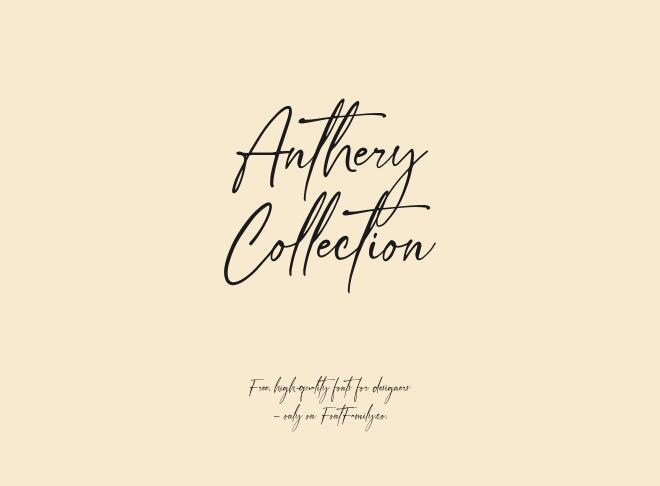
Anthery Collection Font
The Anthery Collection Font, designed by Anthery Design, is a beautiful handwritten font with a rustic and elegant touch. This font is a perfect choice for designers looking to add a natural, organic feel to their work. Its rustic charm makes it ideal for wedding invitations, branding, home decor, and more. The Anthery Collection Font is unique and stands out from other handwritten fonts due to its elegant decorative elements. It's not just a font; it's a design tool that brings your creative ideas to life. The font is free for personal use and is easy to work with, which makes it a favorite among graphic designers. Whether you're working on a logo or a poster, the Anthery Collection Font adds a touch of elegance and sophistication to your designs.